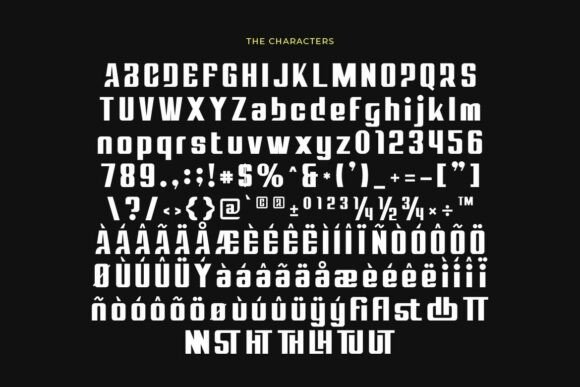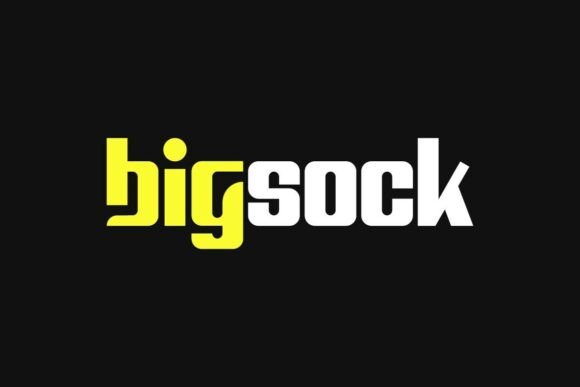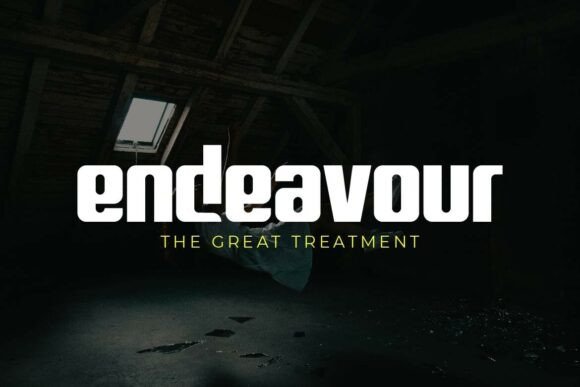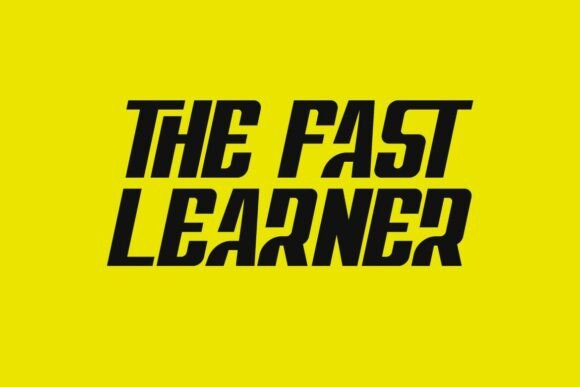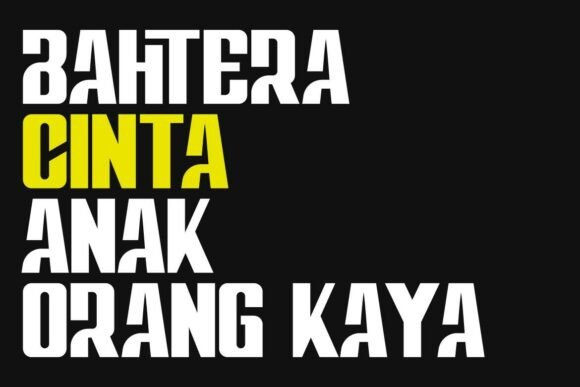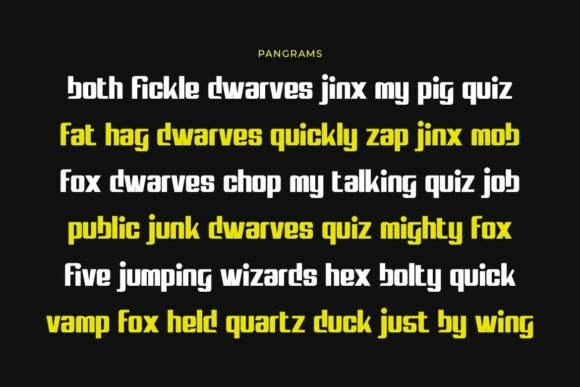
Introducing Bigsock Font: The Ultimate Sans Serif for Impactful Designs
In the world of typography, fonts play a crucial role in conveying messages, expressing emotions, and creating brand identities. For designers and crafters looking for a font that exudes confidence and makes a statement, Bigsock is the perfect solution. This powerful sans serif font is specifically crafted to make your message stand out with authority, making it ideal for a wide range of applications.
The Characteristics of Bigsock Font
Bigsock boasts a unique combination of characteristics that set it apart from other fonts. Its thick strokes give it a bold and robust appearance, while its clean geometry ensures a crisp and modern look. The commanding structure of the font provides a sense of stability and reliability, making it perfect for designs that require a strong foundation.
Some of the key features of Bigsock font include:
- Thick Strokes: The font’s thick strokes give it a bold and attention-grabbing appearance, making it perfect for headlines, titles, and logos.
- Clean Geometry: The clean and modern geometry of the font ensures that it looks great in both digital and print formats.
- Commanding Structure: The font’s structure provides a sense of stability and reliability, making it ideal for designs that require a strong foundation.
Use Cases for Bigsock Font
Bigsock font is incredibly versatile and can be used for a wide range of applications. Some of the most popular use cases include:
- Logos: The font’s bold and commanding appearance makes it perfect for logos that require a strong and confident look.
- Posters: Bigsock font is ideal for posters that need to grab attention and make a statement.
- Headlines: The font’s thick strokes and clean geometry make it perfect for headlines that need to stand out.
- Sports Graphics: The font’s bold and dynamic appearance makes it ideal for sports graphics, such as jerseys, stadium signage, and promotional materials.
- Packaging: Bigsock font can add a touch of confidence and authority to packaging designs, making products stand out on store shelves.
- Branding Projects: The font’s commanding structure and clean geometry make it perfect for branding projects that require a strong and modern look.
Why Choose Bigsock Font?
With so many fonts available, why choose Bigsock? Here are just a few reasons why Bigsock font stands out:
- Confidence-Inspiring: The font’s bold and commanding appearance is designed to inspire confidence and authority.
- Versatile: Bigsock font can be used for a wide range of applications, from logos and posters to headlines and packaging.
- Modern: The font’s clean geometry and thick strokes give it a modern and fresh look that’s perfect for contemporary designs.
- Easy to Read: Despite its bold appearance, Bigsock font is easy to read, making it perfect for designs that require a clear and concise message.
In conclusion, Bigsock font is a powerful sans serif font that’s perfect for designers and crafters looking to make a statement. With its thick strokes, clean geometry, and commanding structure, Bigsock is ideal for logos, posters, headlines, sports graphics, packaging, and branding projects that demand attention. Whether you’re looking to inspire confidence, make a bold statement, or simply add a touch of modernity to your designs, Bigsock font is the perfect choice.